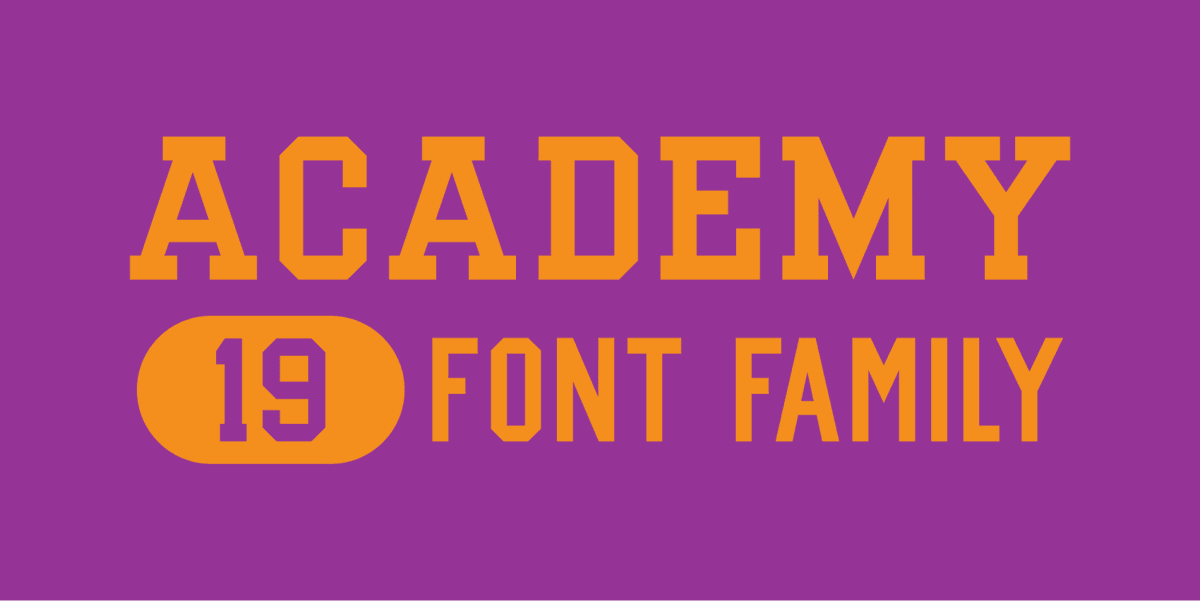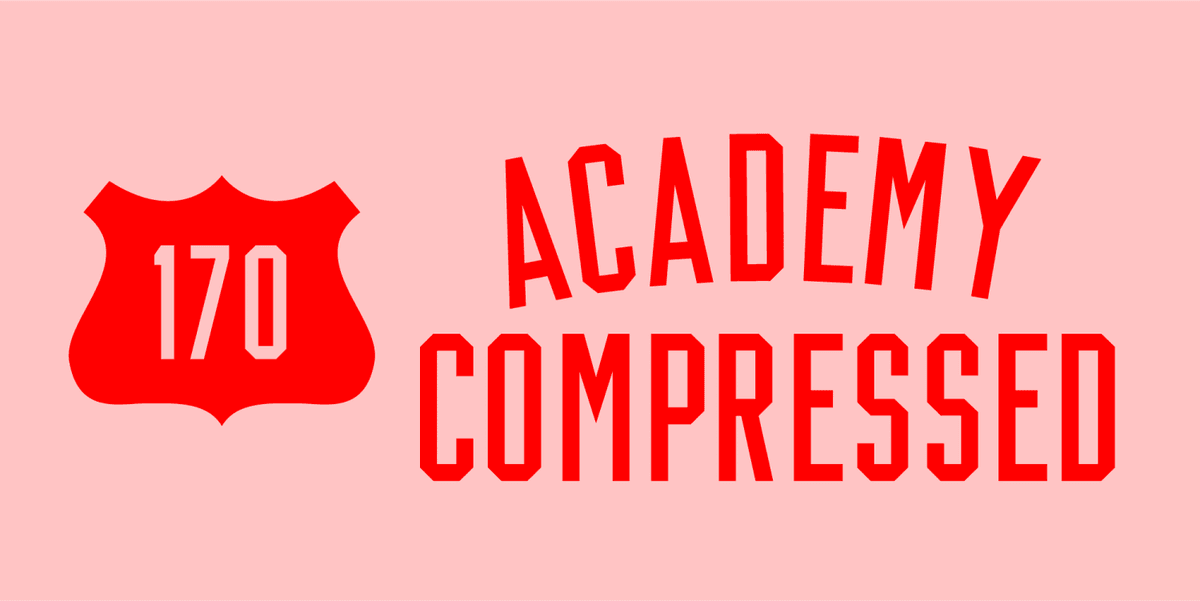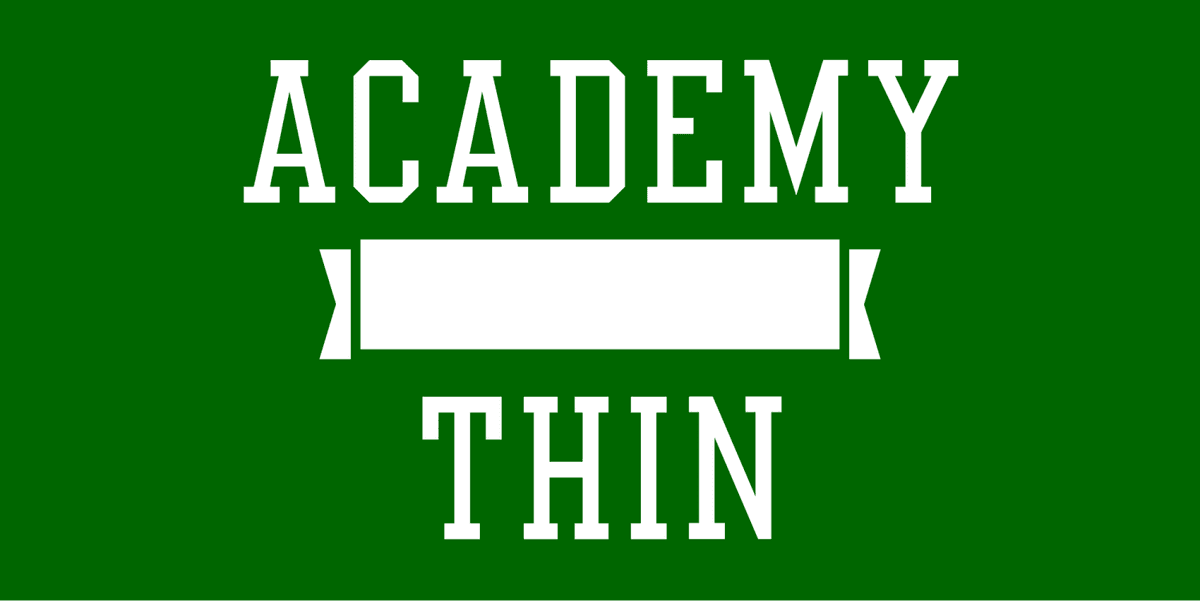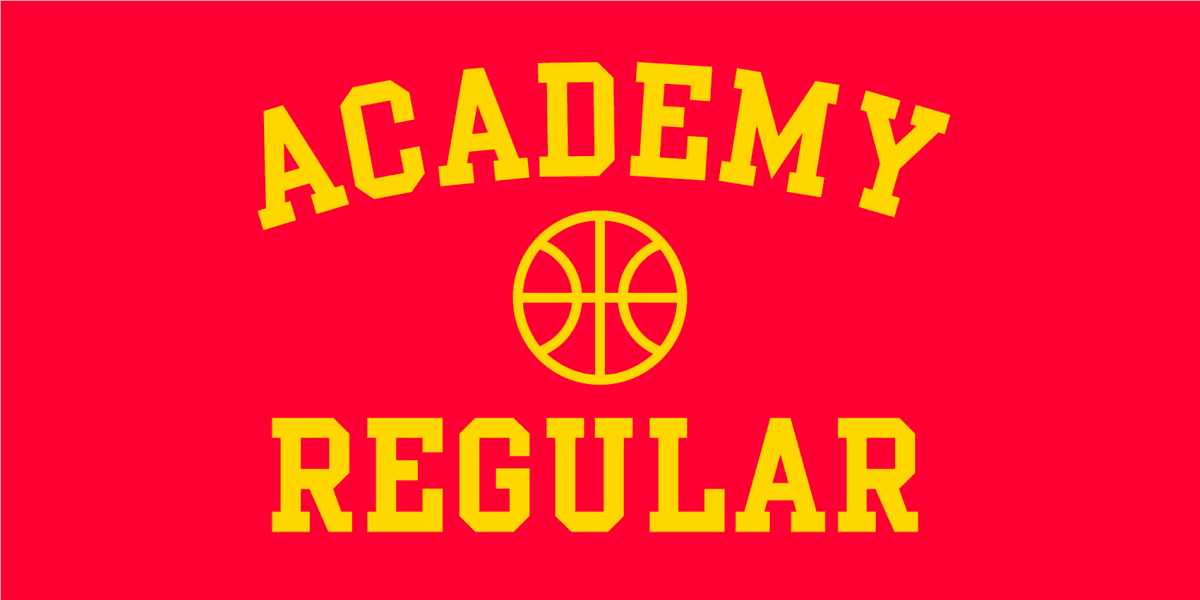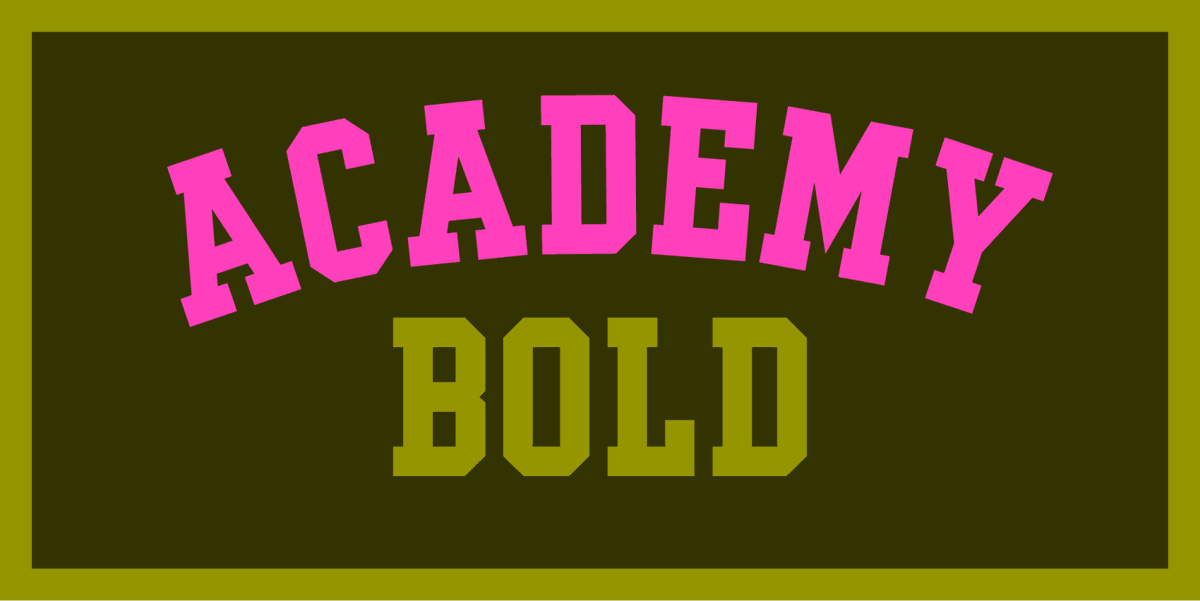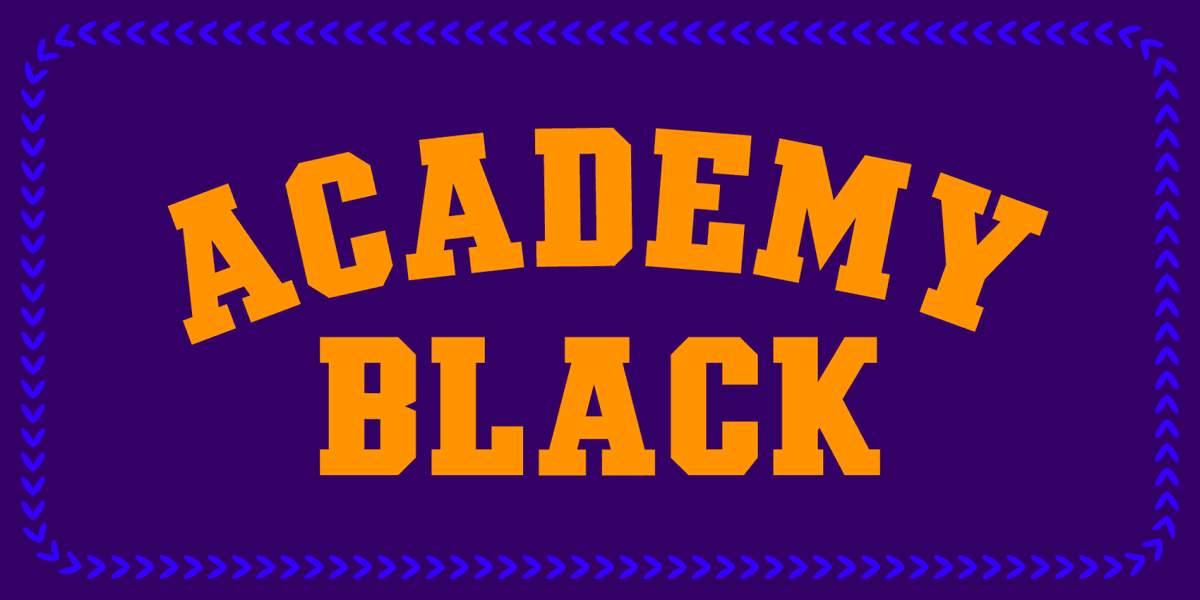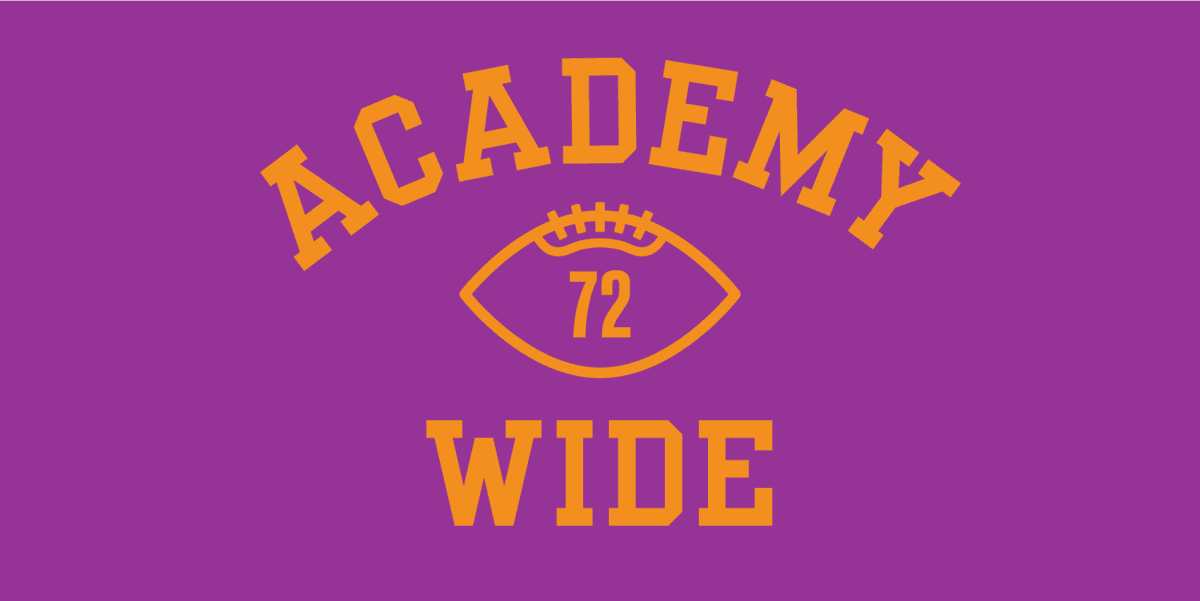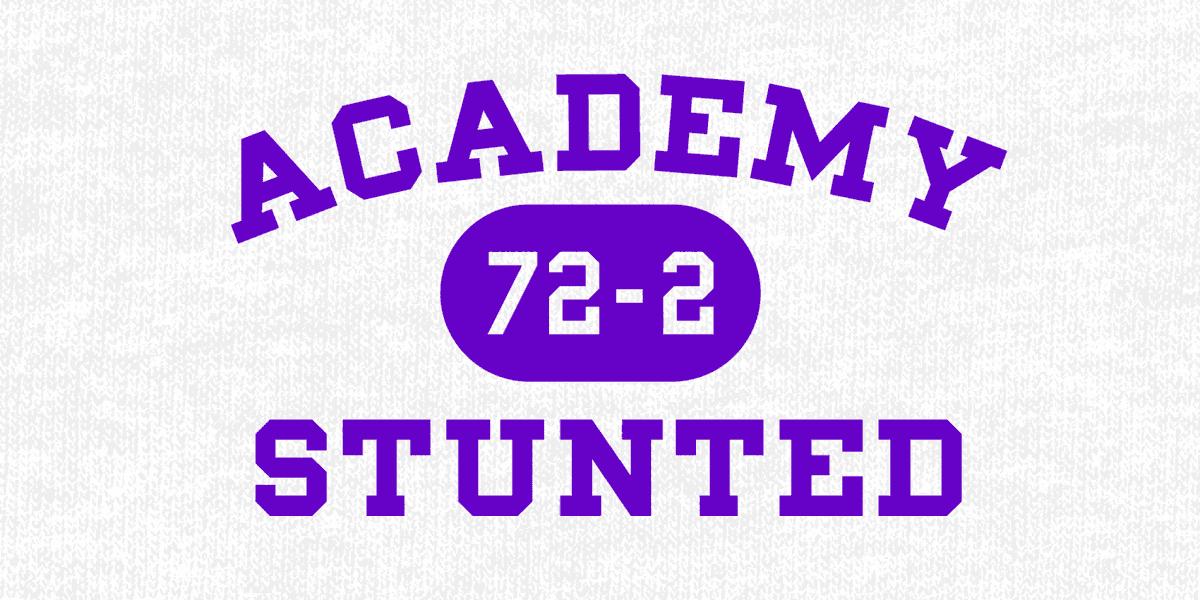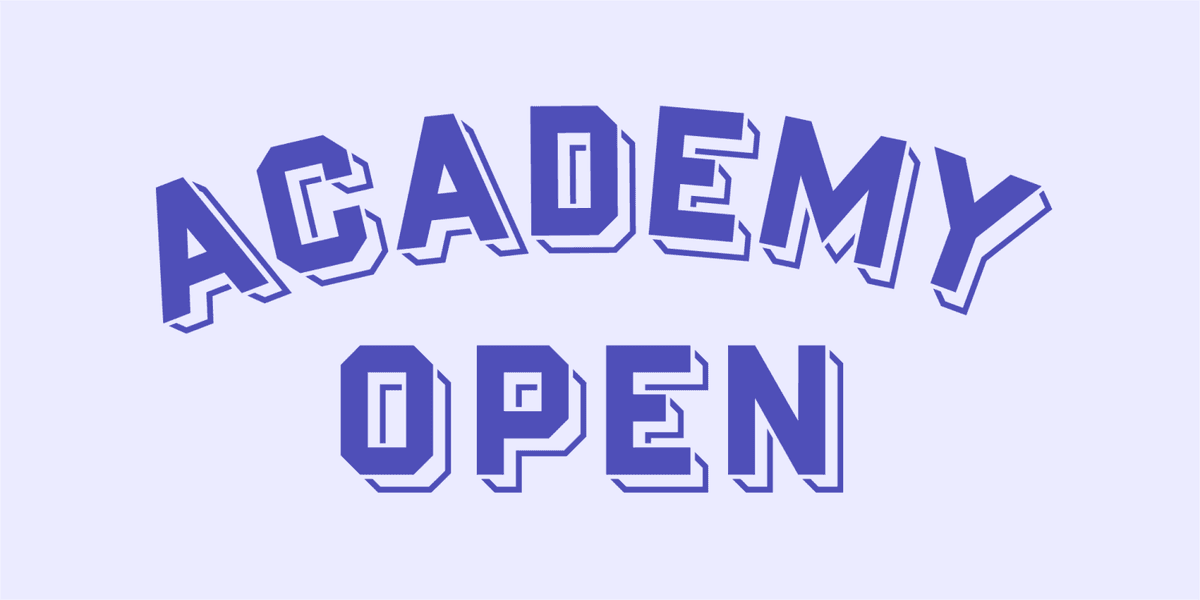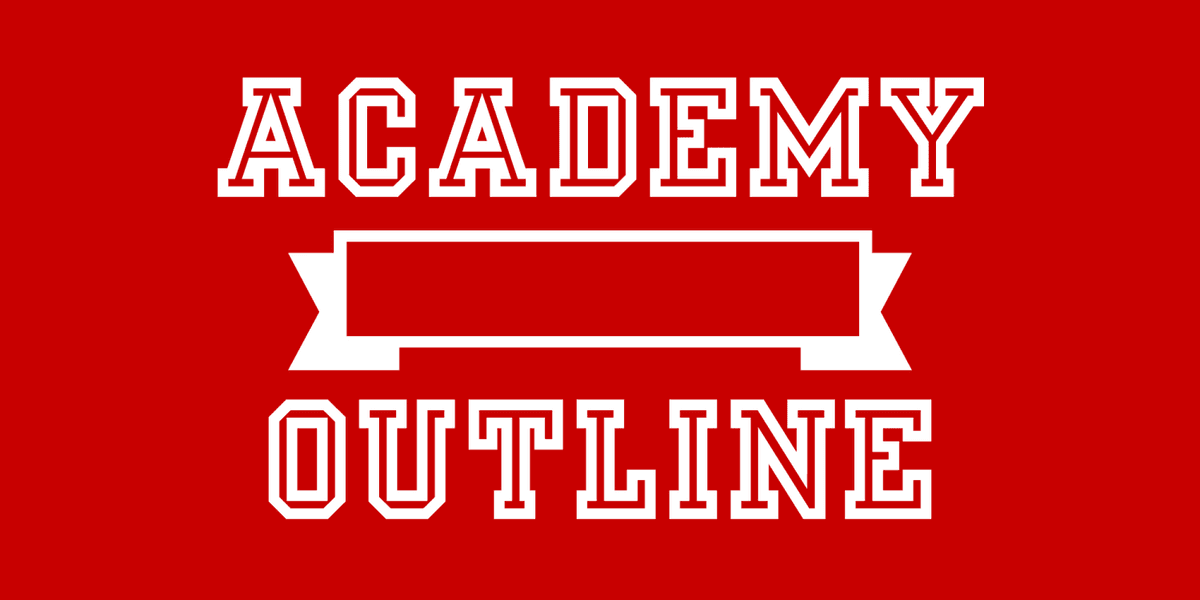
The Academy Font Family by Fontalicious is a bold, collegiate-inspired typeface collection, perfect for sports branding and varsity-themed designs. With 19 styles (including serif, sans serif, inline, and stencil options), it offers versatile choices for creating that classic campus look.